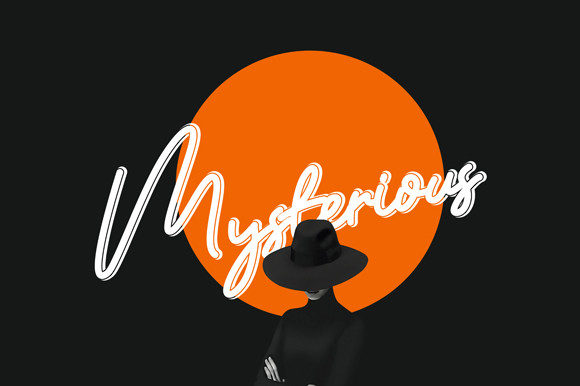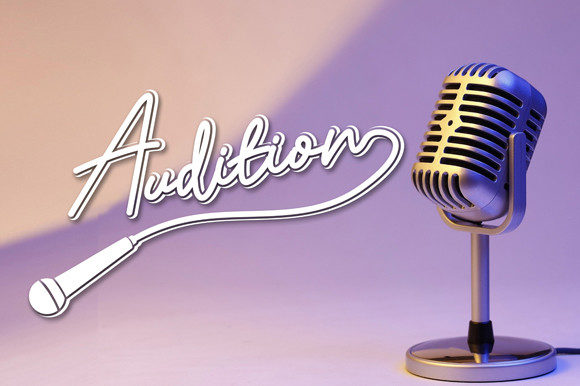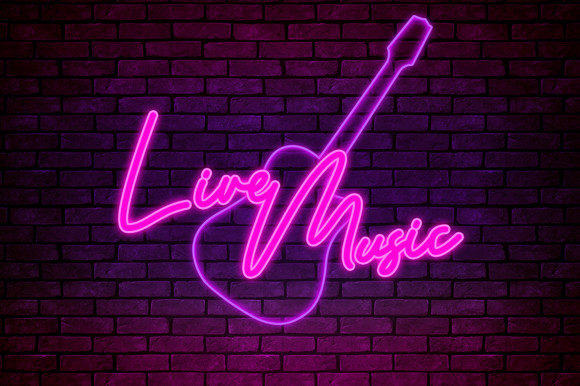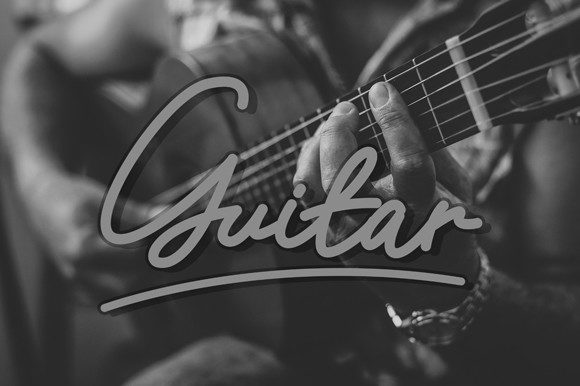
Introducing Anandayu Font: Elevate Your Designs with Elegance and Class
In the world of typography, a font can make or break a design project. A well-crafted font can add a touch of elegance, sophistication, and personality to any creative endeavor. This is where Anandayu Font comes in – a sweet and subtle handwritten font that is meticulously designed to produce maximum results. In this article, we’ll dive into the world of Anandayu Font, exploring its features, benefits, and uses, and why it’s a must-have for designers and crafters.
The Story Behind Anandayu Font
Anandayu Font is the brainchild of a meticulous designer who understands the importance of typography in design. With a passion for creating beautiful and functional fonts, the designer has poured their heart and soul into crafting a font that is both visually appealing and versatile. The result is a font that exudes elegance, class, and a touch of whimsy.
Key Features of Anandayu Font
So, what makes Anandayu Font stand out from the rest? Here are some of its key features:
• Sweet and Subtle: Anandayu Font boasts a sweet and subtle charm that is perfect for designs that require a touch of elegance and sophistication.
• Handwritten: This font is carefully handcrafted to give it a personal and human touch, making it ideal for projects that require a more intimate feel.
• Versatile: Anandayu Font is designed to be versatile, making it suitable for a wide range of design projects, from branding and advertising to packaging and digital media.
• Elegant and Classy: This font adds a touch of elegance and class to any design project, making it perfect for designers who want to create sophisticated and high-end designs.
Benefits of Using Anandayu Font
So, why should you choose Anandayu Font for your design projects? Here are some benefits of using this beautiful font:
• Stand Out from the Crowd: With Anandayu Font, you can create designs that stand out from the crowd and leave a lasting impression on your audience.
• Enhance Your Brand: This font can help you create a unique and recognizable brand identity that reflects your values and personality.
• Save Time: Anandayu Font is designed to be easy to use and versatile, saving you time and effort in your design projects.
• Boost Your Creativity: With Anandayu Font, you can unleash your creativity and experiment with different design ideas and concepts.
Uses of Anandayu Font
Anandayu Font is a versatile font that can be used in a wide range of design projects, including:
• Branding and Advertising: Use Anandayu Font to create eye-catching logos, posters, and advertisements that grab attention.
• Packaging: Add a touch of elegance and sophistication to your packaging designs with Anandayu Font.
• Digital Media: Use this font to create engaging and interactive digital media, such as social media graphics, blog posts, and website headers.
• Crafting and Scrapbooking: Anandayu Font is perfect for crafters and scrapbookers who want to add a personal touch to their projects.
In conclusion, Anandayu Font is a beautiful and versatile handwritten font that can elevate your design projects to the next level. With its sweet and subtle charm, elegant and classy feel, and versatility, this font is a must-have for designers and crafters. Whether you’re looking to create stunning branding and advertising designs, beautiful packaging, or engaging digital media, Anandayu Font is the perfect choice. So why wait? Get your hands on Anandayu Font today and start creating designs that leave a lasting impression!